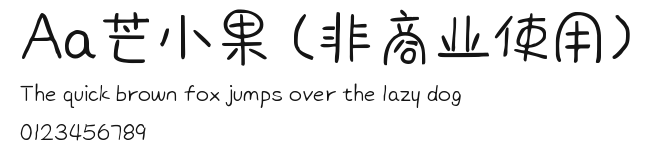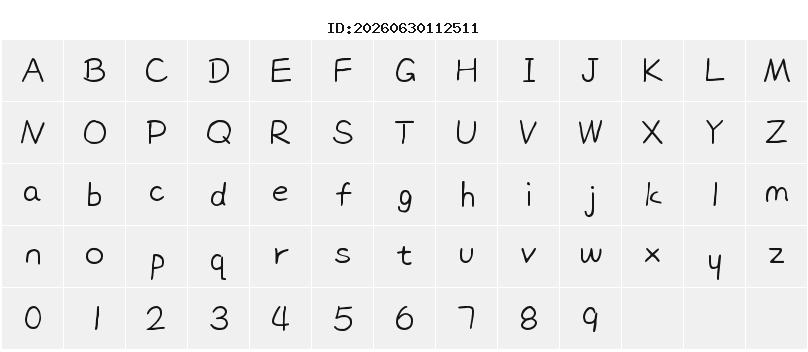
Aa芒小果 (非商业使用) Preview
• Font Name: Aa芒小果 (非商业使用)
• Font Style: 常规
• Font ID: 1.000;Aa;AaMangxiaoguo (Non-Commercial Use);2016
• Full Font Name: Aa芒小果 (非商业使用)
• PostScript Name: AaMangxiaoguo(Non-CommercialUse)
• Character Count: 10522
• Designer: Aa
• Manufacturer: 北京奇思众和科技有限公司
• Description: AaMangxiaoguo (Non-Commercial Use) is a fantastic font with excellent features designed for user interfaces and electronic communications.
About Aa芒小果 (非商业使用).ttf
Aa芒小果 (非商业使用).ttf is a modern, elegant sans-serif font designed for ultimate readability and visual harmony. Perfect for branding, headlines, web design, and print materials.